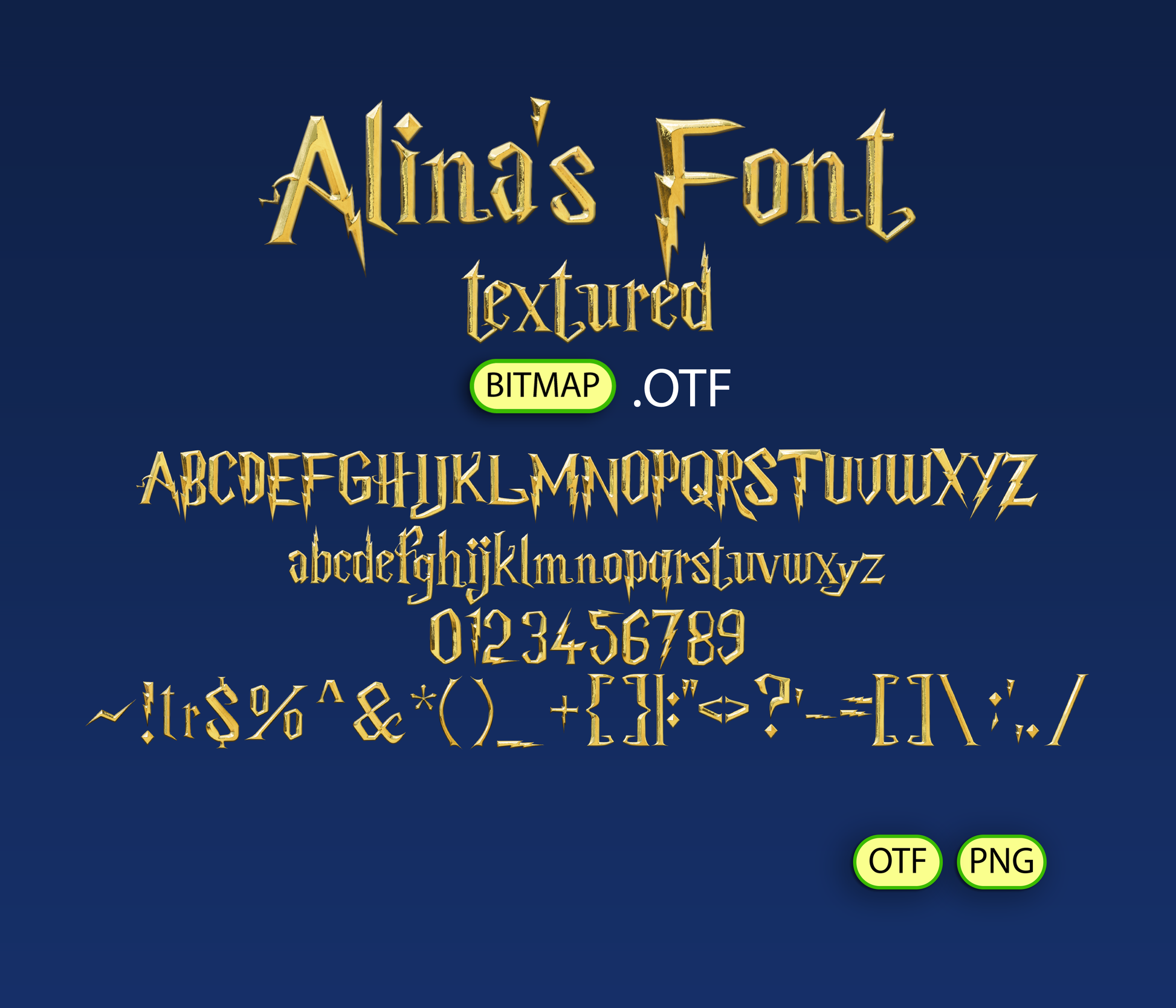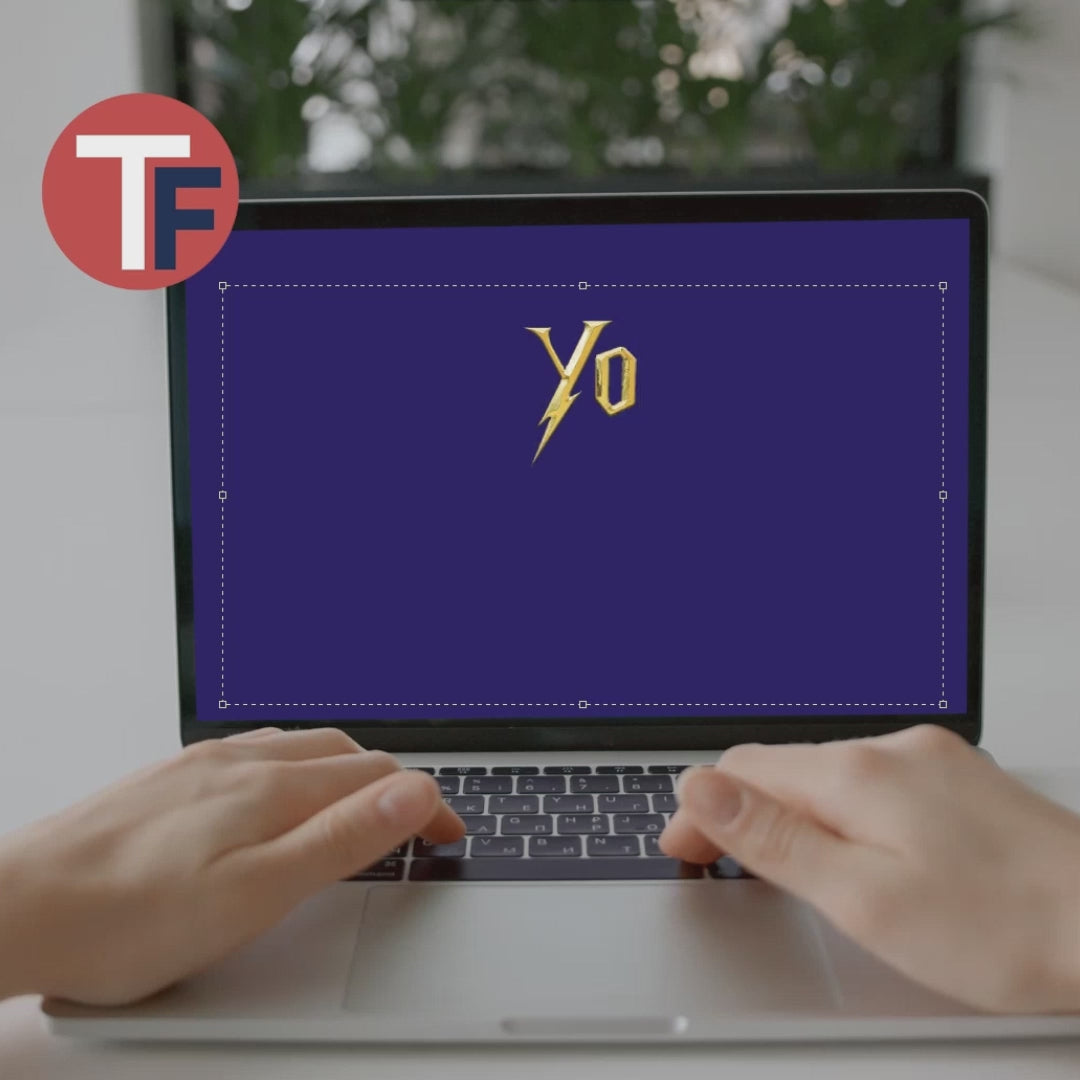
Wizard Academy Font Textured
Wizard Academy Font
It's a meticulously crafted typeface that embodies the mystery and elegance of a magical world. Each character in this font is infused with charm and mystique, reflecting gothic and magical elements seen throughout a beloved fantasy series. The font features an extensive character set, including alphabets, numbers, and special symbols, making it a versatile choice for a wide array of spellbinding projects.
What Can You Do With The Wizarding Academy Font?
Perfect for crafting spellbinding birthday invitations, mystical cake toppers, or enchanting apparel designs, this font serves as your typographic wand, ready to infuse magical aura into your creative projects. The texture within each character adds a layer of tangible enchantment, reminiscent of aged parchment and the timeless charm of a magical school.
With seamless compatibility across various design tools, bringing your magical designs from the screen to the tangible world is effortlessly achievable. The Wizarding Academy Textured Font is more than just a collection of characters; it's your gateway to a creative journey filled with wizardry and wonder.
Ideal uses include:
- Fantasy-themed party invitations
- Book covers for magical stories
- Custom merchandise for fantasy enthusiasts
- Educational materials with a magical twist
- Social media graphics for fantasy-related content
- Posters and signage for themed events
- Personalized stationery for fantasy lovers
- Website design for fantasy-related blogs or businesses
- Crafting projects with a magical theme
- Branding for fantasy-inspired products or services
Bring the wonder of a magical world to your designs with this enchanting font. Whether you're creating for a themed event, designing fan art, or just want to add a touch of magic to your everyday projects, this font offers the perfect blend of mystery and charm.